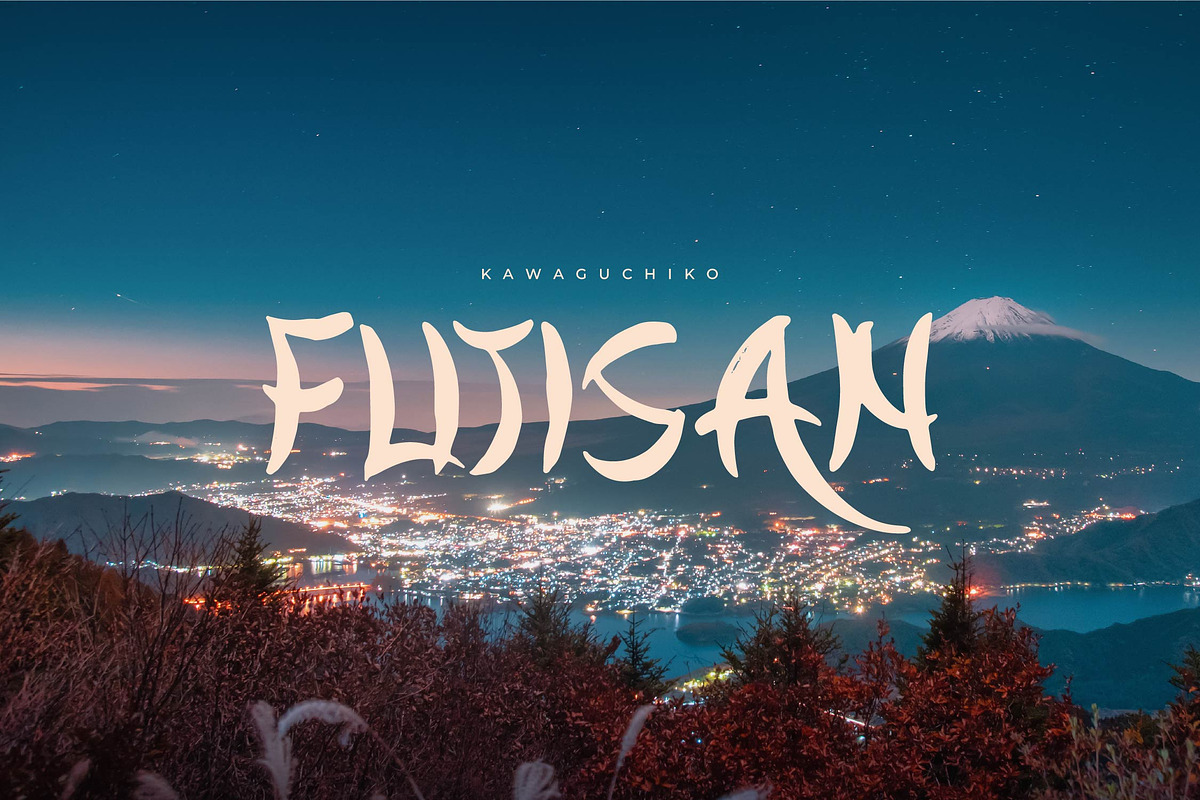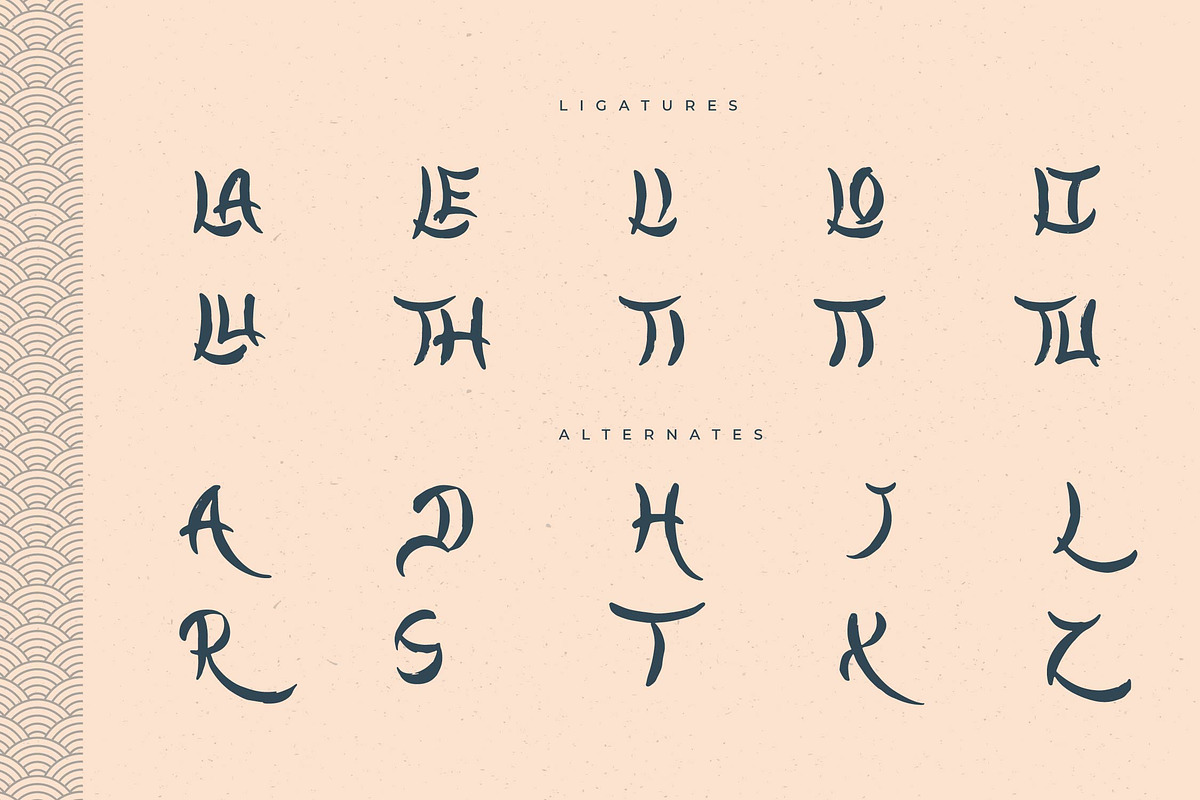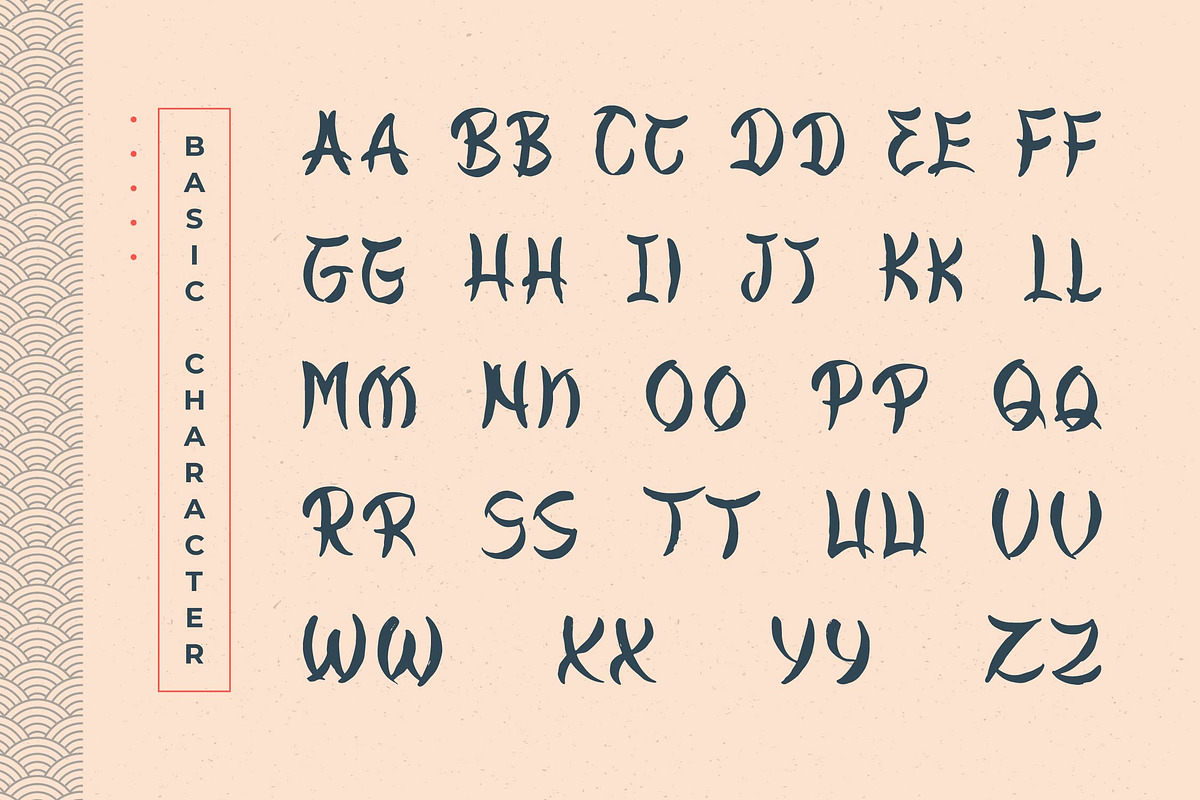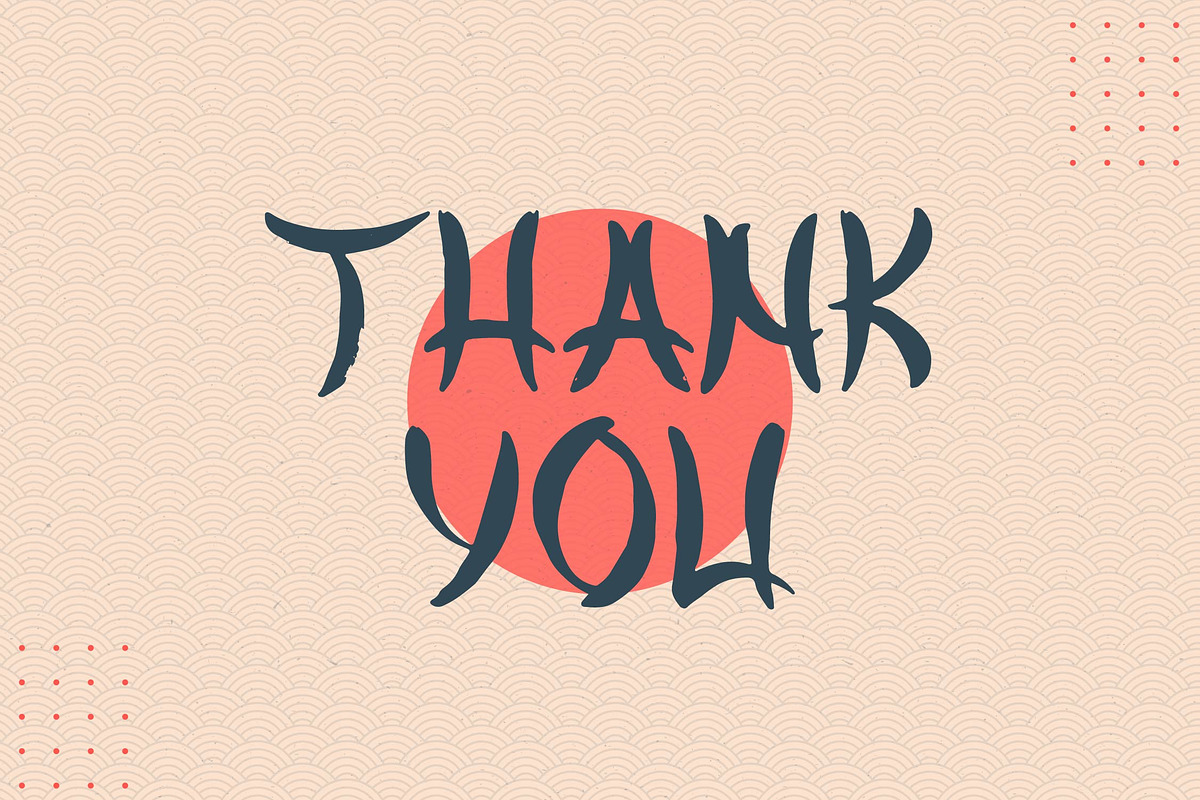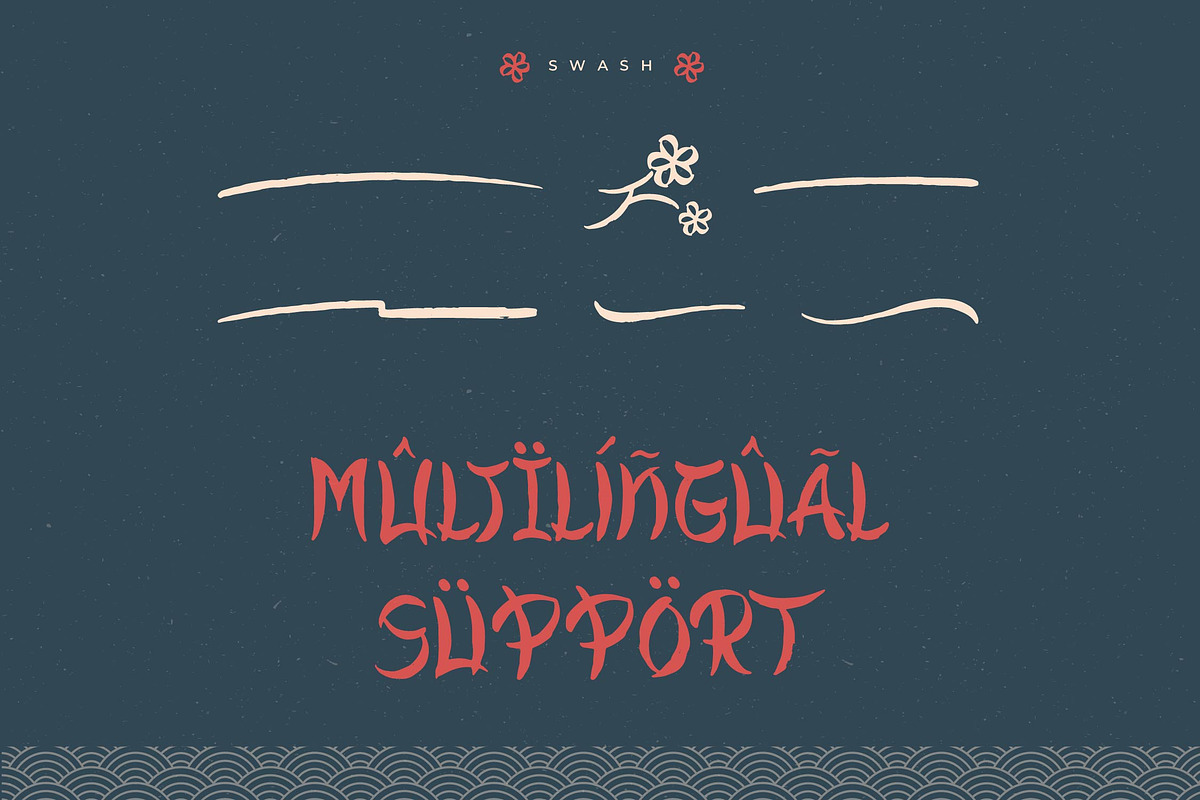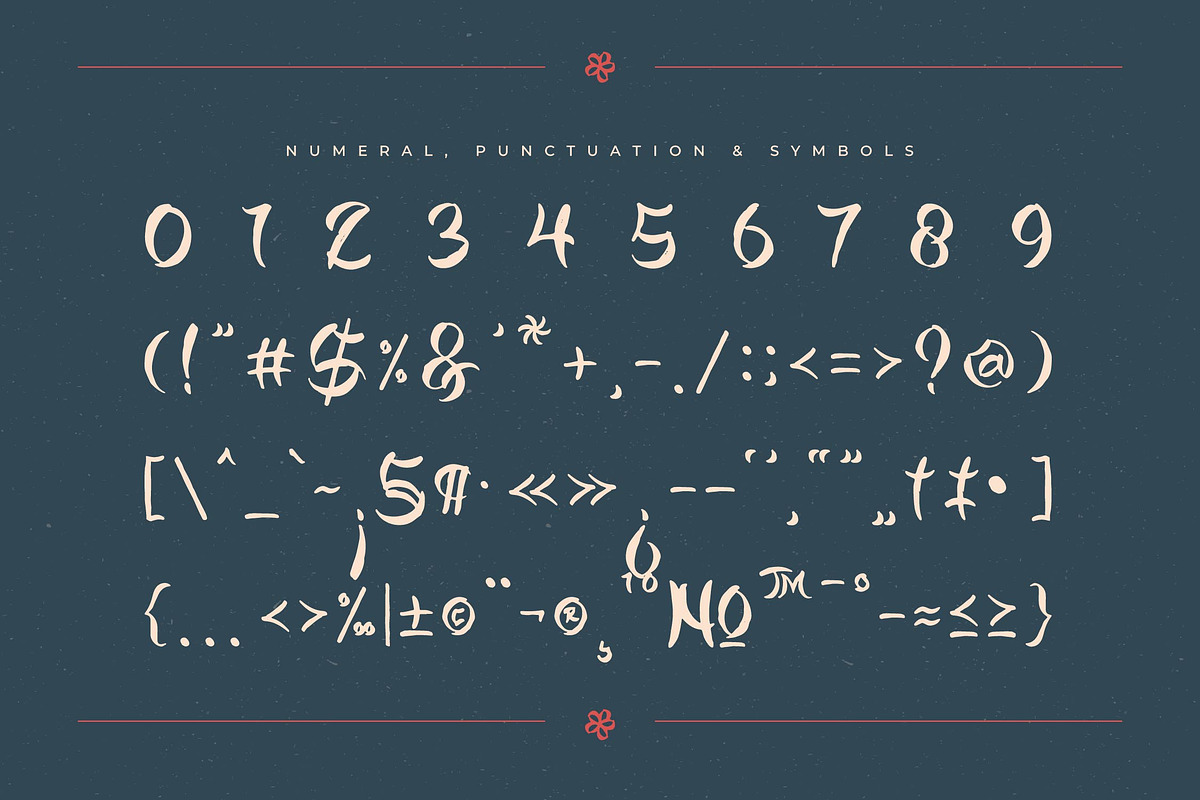
Blossom Sakura | Japanese Brush
Blossom Sakura | Japanese Brush,from Denustudios, suitable for any projects such as: logos, branding projects, homeware designs, product packaging, mugs, quotes, posters, shopping bags, t-shirts, book covers, name card, invitation cards, greeting cards, label, photography, watermark, special events, and all your other lovely projects that need a Japanese Brush taste.